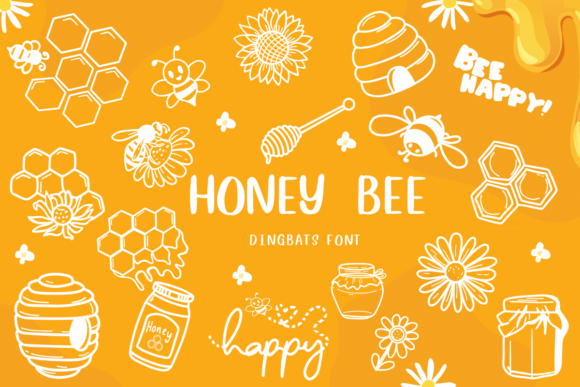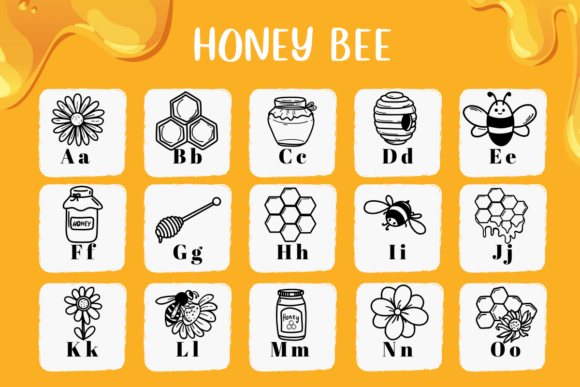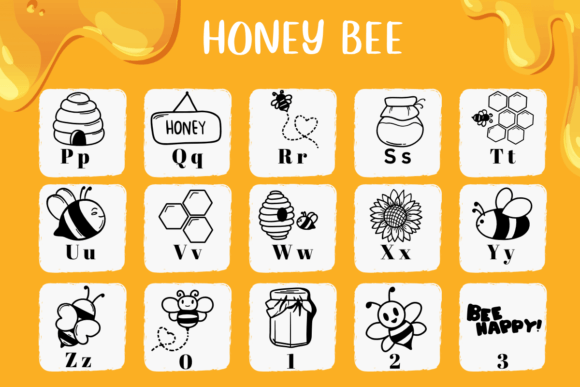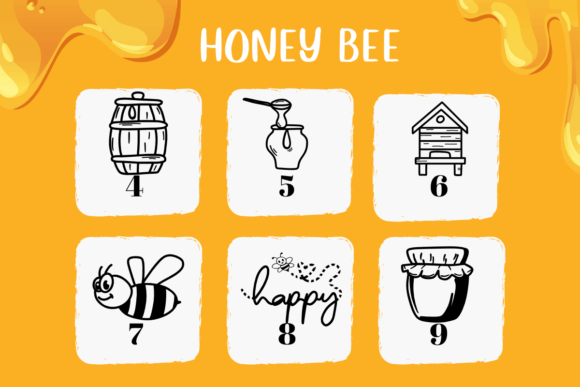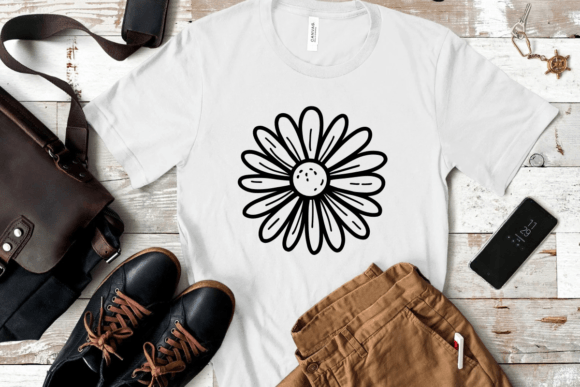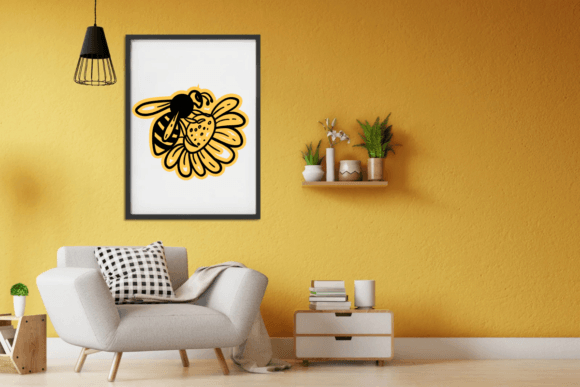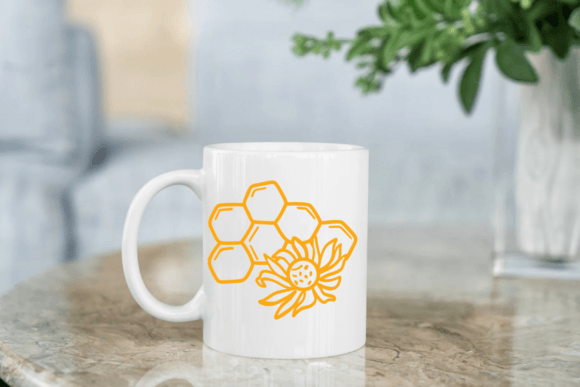
The Buzz on Creative Design: Introducing Honey Bee Font
Do you remember that moment when a spark of creativity hit you, and you knew exactly how you wanted your project to turn out? Maybe it was a wedding invitation that needed a touch of whimsy or a DIY craft that required a dash of personality. Whatever it was, you knew that the right font could make all the difference.
Enter the Honey Bee Font, a delightful dingbats font with a sketched style that’s perfect for adding a personal touch to your creative projects. With its charming, hand-drawn aesthetic, this font is ideal for wedding invitations, DIY crafts, decorations, logos, and any other project that needs a little extra flair.
Honey Bee Font Key Features
- Unique Characteristics: Honey Bee Font features a unique, hand-drawn design with intricate details and a playful, whimsical feel, making it perfect for creative projects and designs that require a touch of warmth and personality.
Honey Bee Font Review
I recently had the chance to work with the Honey Bee Font, and overall, I found it to be a charming addition to my design projects. ✨ One of the things I love about this font is its playful and whimsical feel, which makes it perfect for projects that require a touch of sweetness and innocence. ✨ The font is highly customizable, allowing users to easily adjust the size, color, and style to suit their needs.
Here are some of the font’s key features:
- Highly customizable with a wide range of style options
- Perfect for projects that require a playful and whimsical feel
- Includes a range of character variations, including uppercase and lowercase letters
- Supports a wide range of languages
While I was generally impressed with the Honey Bee Font, there are a few limitations to consider. ⚠️ For example, the font may not be suitable for projects that require a more formal or professional tone. Additionally, some users may find the font’s customizability options to be overwhelming, which can make it difficult to achieve a cohesive look.
Overall, I would recommend the Honey Bee Font for projects that require a touch of whimsy and playfulness. With its high level of customizability and wide range of style options, this font is sure to be a hit with designers and non-designers alike.
Honey Bee Font: A Practical Application Guide
Tips for Getting the Most Out of the Honey Bee Font
Use the Honey Bee Font for titles, headings, and other emphasis text to add a touch of whimsy and personality to your designs.
Combine the Honey Bee Font with other playful fonts or graphics to create a fun and engaging visual style.
Experiment with different font sizes, colors, and styles to create a unique and eye-catching look.
The Honey Bee Font is perfect for:
Children’s party invitations and decorations
Food and beverage branding
Wedding invitations and decorations
Summer and outdoor-themed designs